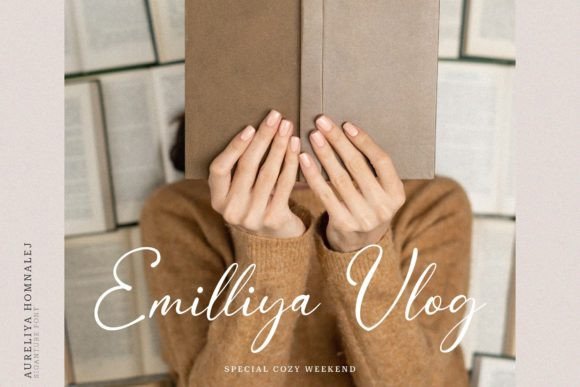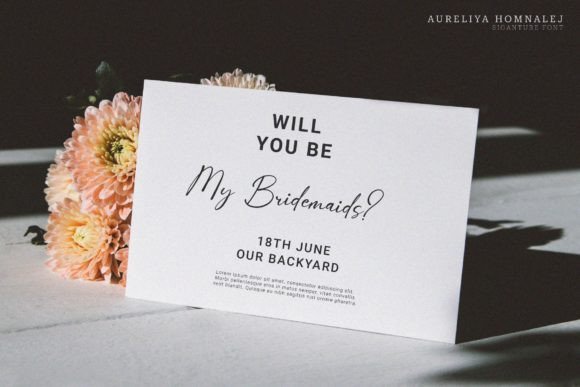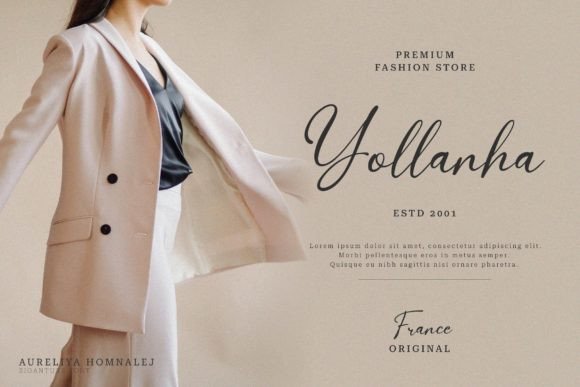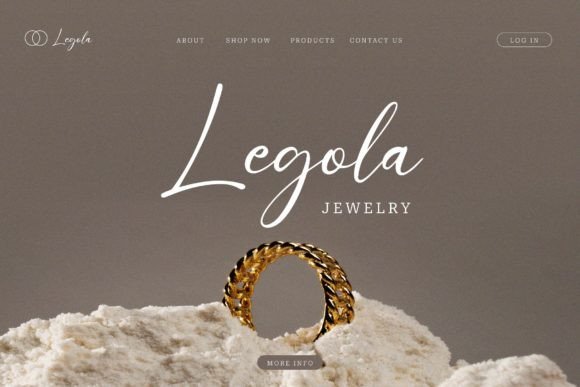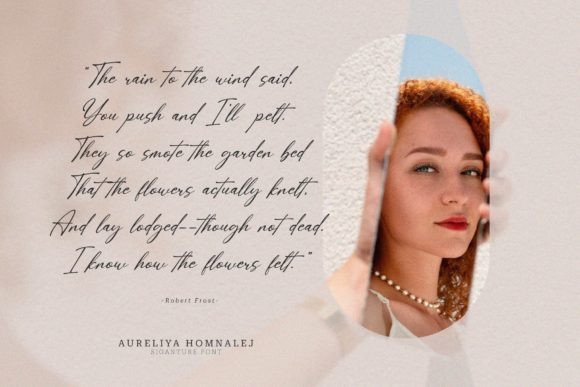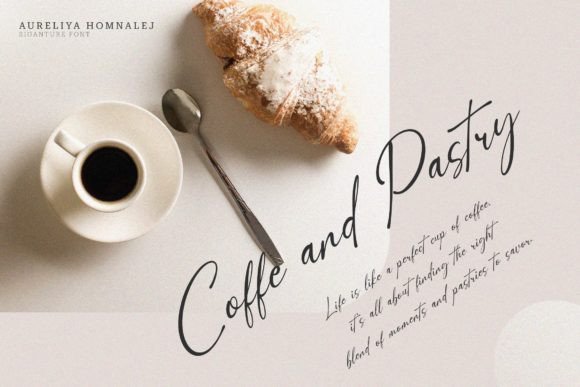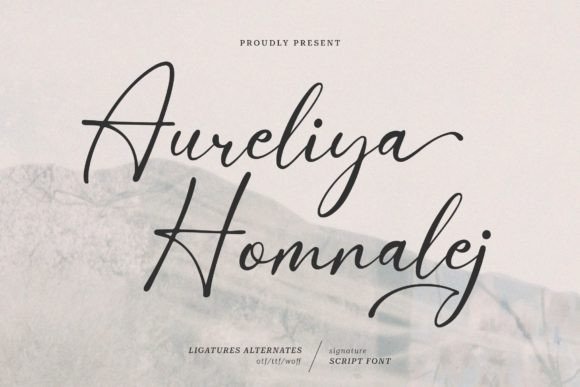
Aureliya Homnalej Font: Elevate Your Designs with Elegance and Sophistication
In the world of design, typography plays a crucial role in conveying the tone and personality of a project. For designers and crafters seeking a font that exudes elegance and sophistication, Aureliya Homnalej is an exceptional choice. This dainty and elegant script font is perfect for a wide range of projects, from logos and branding to homeware designs, product packaging, and more.
What Makes Aureliya Homnalej Special?
Aureliya Homnalej boasts a unique, hand-crafted aesthetic that sets it apart from other script fonts. Its delicate lines and curves create a sense of refinement and luxury, making it ideal for projects that require a touch of sophistication. Whether you’re designing a logo, creating a brand identity, or crafting a beautiful invitation, Aureliya Homnalej is sure to impress.
One of the standout features of Aureliya Homnalej is its versatility. This font can be used for a wide range of projects, including:
- Homeware Designs: Add a touch of elegance to your home decor designs, from wall art to stationery.
- Product Packaging: Make your products stand out with beautiful, custom packaging that reflects your brand’s aesthetic.
- Mugs and Drinkware: Create stunning designs for mugs, water bottles, and other drinkware.
- Quotes and Posters: Add a touch of sophistication to your inspirational quotes and posters.
- Shopping Bags and T-Shirts: Create eye-catching designs for shopping bags, t-shirts, and other apparel.
- Book Covers and Name Cards: Design beautiful book covers, name cards, and other stationery items.
- Invitation Cards and Greeting Cards: Create stunning invitations and greeting cards for special occasions.
- Labels and Watermarks: Add a touch of elegance to your labels, watermarks, and other design elements.
Why Choose Aureliya Homnalej?
With so many fonts available, why choose Aureliya Homnalej? Here are just a few reasons:
- Elegant and Sophisticated: Aureliya Homnalej exudes refinement and luxury, making it perfect for high-end projects.
- Versatile: This font can be used for a wide range of projects, from logos and branding to homeware designs and product packaging.
- Easy to Read: Despite its delicate lines and curves, Aureliya Homnalej is easy to read, making it perfect for body text and headlines.
- Unique: Aureliya Homnalej has a unique, hand-crafted aesthetic that sets it apart from other script fonts.
Tips for Using Aureliya Homnalej
To get the most out of Aureliya Homnalej, here are a few tips:
- Pair with a Sans-Serif Font: Pair Aureliya Homnalej with a sans-serif font for a beautiful contrast.
- Use for Headlines and Titles: Aureliya Homnalej is perfect for headlines and titles, where its elegance and sophistication can shine.
- Experiment with Colors: Try pairing Aureliya Homnalej with different colors to create a unique look.
In conclusion, Aureliya Homnalej is an exceptional script font that can elevate your designs with its elegance and sophistication. With its versatility, unique aesthetic, and ease of use, it’s perfect for a wide range of projects. Whether you’re a designer, crafter, or DIY enthusiast, Aureliya Homnalej is sure to become a favorite in your font collection.